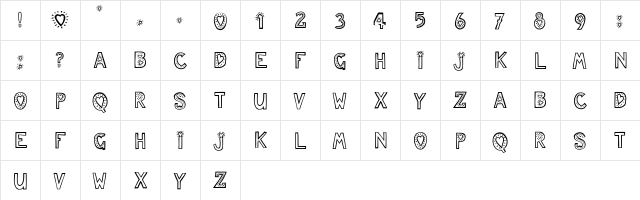
JulesLove Regular
| Designer | Designer: Julianne Pearce; Tech: Rolf Skyberg |
Design Context for JulesLove Typeface
JulesLove is a composed and adaptable typeface that performs quietly and consistently across a wide range of design contexts.